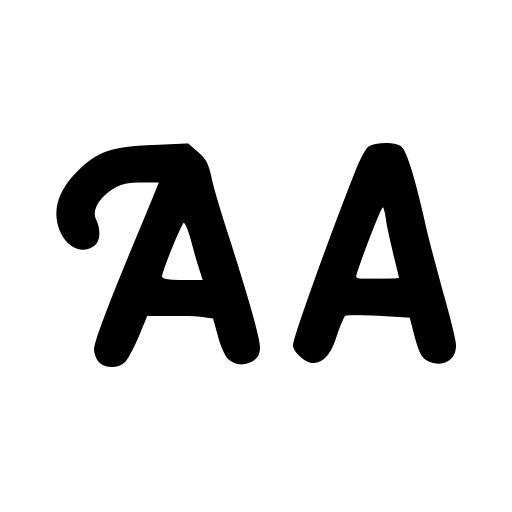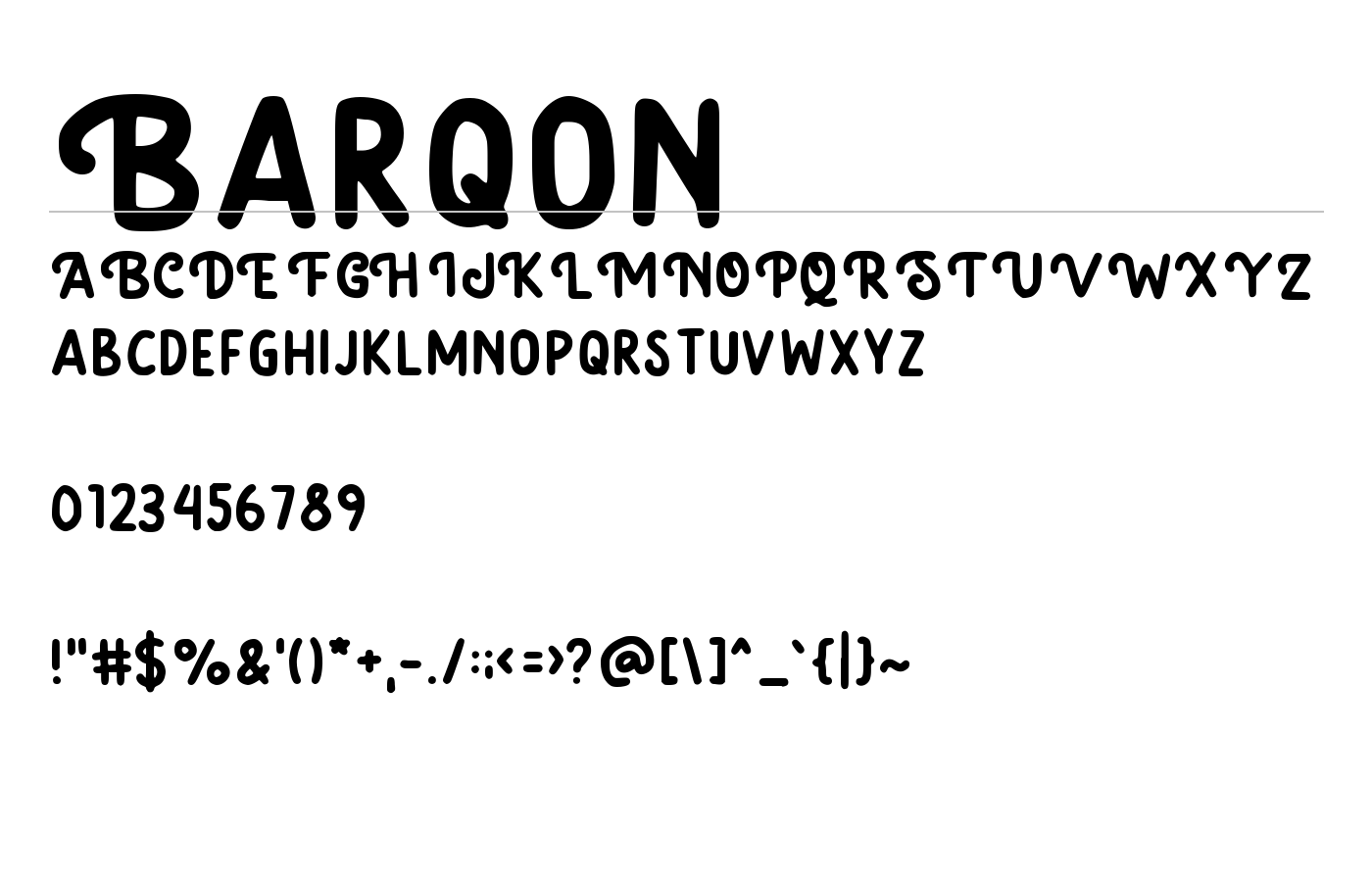
Barqon is a bold, playful sans serif font with a friendly, hand-drawn feel. Its rounded and slightly uneven letterforms add a casual, approachable vibe, making it ideal for creative projects, children’s books, or branding that seeks a fun and informal tone. This font works well for headlines, logos, or any design needing a lively, personal touch.
Barqon Font
About Barqon Font
| Font family | Barqon Font |
| Designer | Muhammad Husni Haikal |